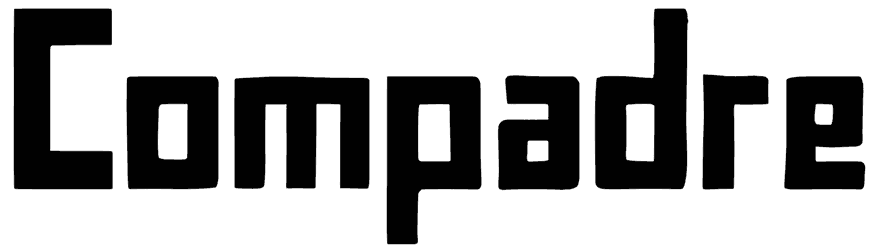
TTD Compadre Font
Old-style words always have many fans, and the use of this appearance in the designs can be very creative. This square font, which is called TTD Compadre, consists of a classic and memorable style that would be a salient…
Old-style words always have many fans, and the use of this appearance in the designs can be very creative. This square font, which is called TTD Compadre, consists of a classic and memorable style that would be a salient face for various projects. Give it a try and set TTD Compadre on your coming designs, namely posters, web graphics, games, or whatnot, and be unique.
Bold and brash, the perfect font by which to express your opinion!